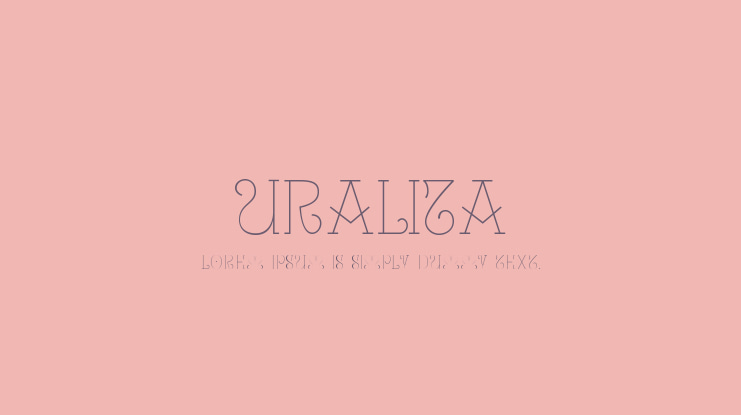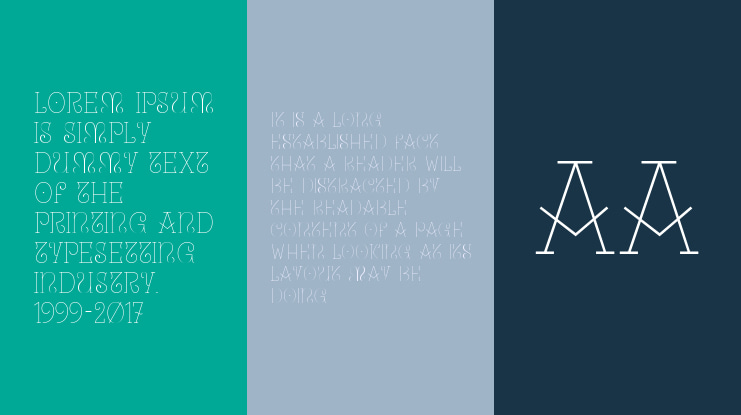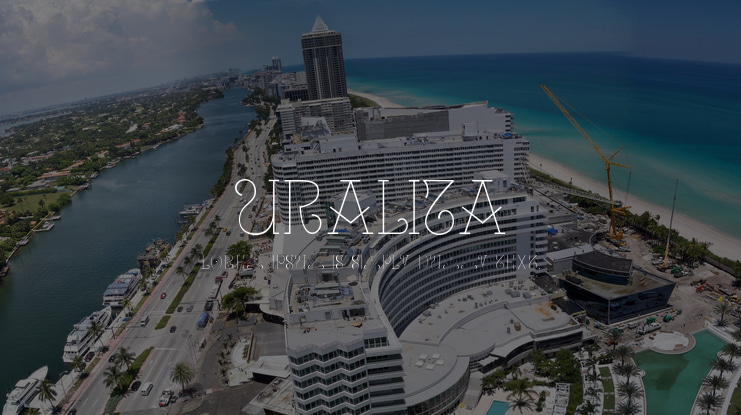
Uralita Font Family
RubŽn Prol
/Ê.ɾÉË.li.tÉ/ Yet another Galician folk typeface inspired on ancient stone inscriptions. It comes in two different weights (fina & regular)